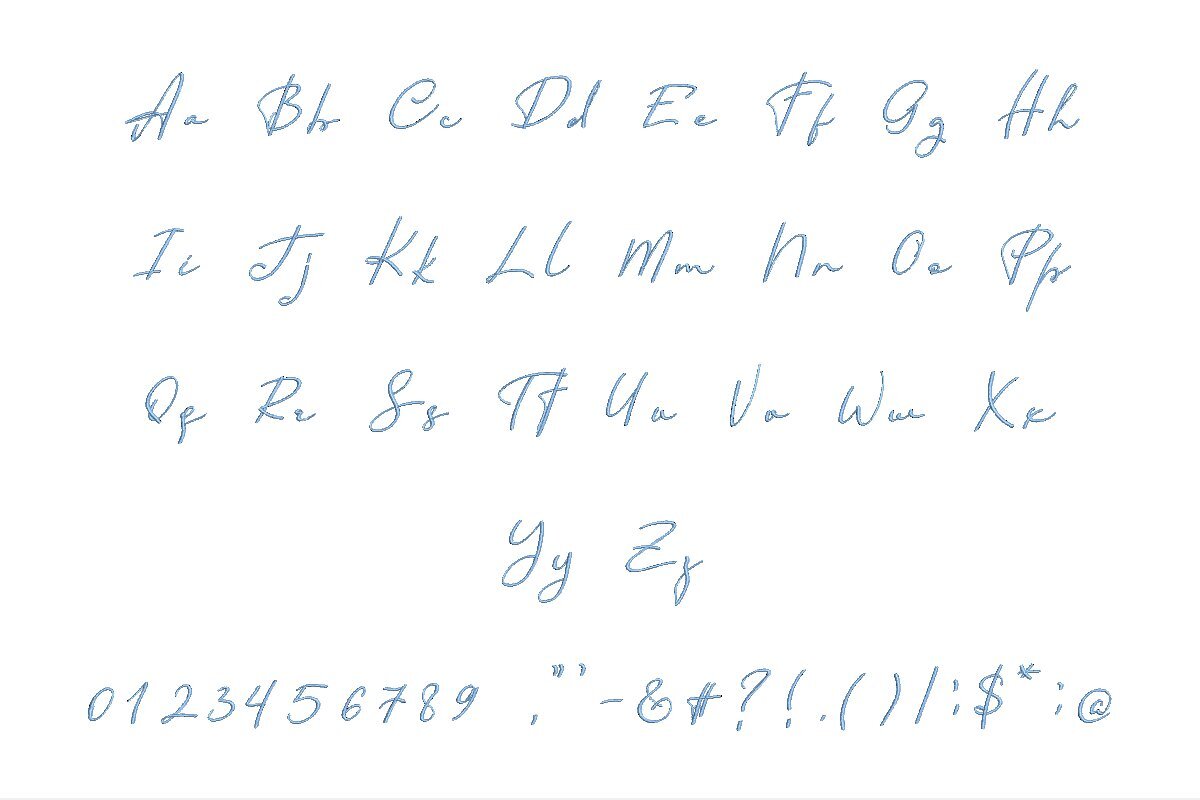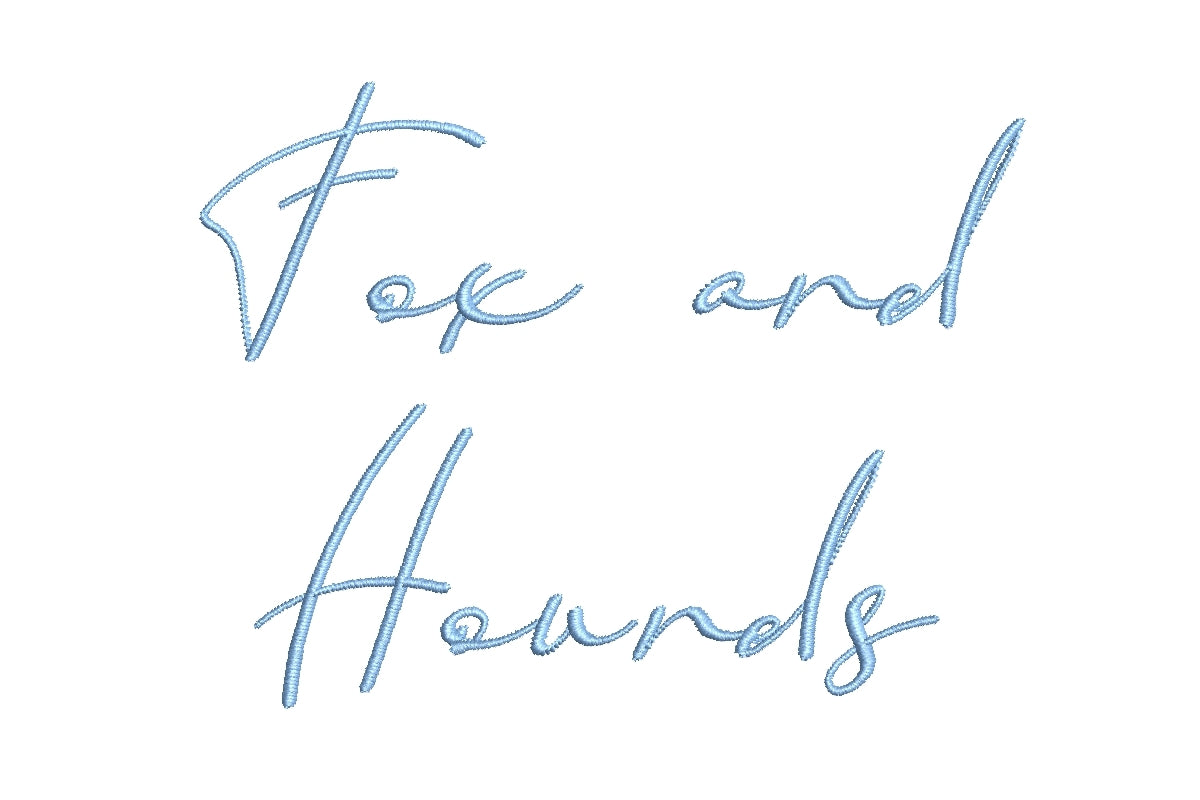
Introducing the Fox and Hounds ESA Font, your gateway to embroidery versatility. Designed for seamless compatibility with Wilcom Studio e4.5.6 and Hatch 3 versions and beyond, this font caters to both experts and novices. Whether you're a seasoned embroiderer or just starting your creative journey, Fox and Hounds ESA simplifies the digitizing and stitching process. Its effortless integration with Wilcom Studio and Hatch ensures a smooth experience. With a perfect blend of traditional charm and contemporary style, this font adds elegance to your designs. Elevate your embroidery projects with the Fox and Hounds ESA Font, your key to creative possibilities. Order now for exceptional results.